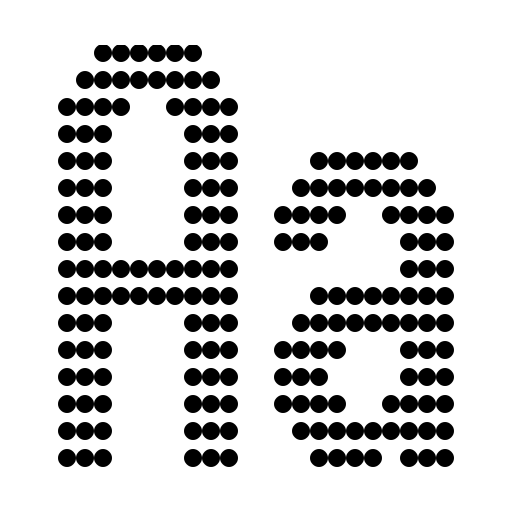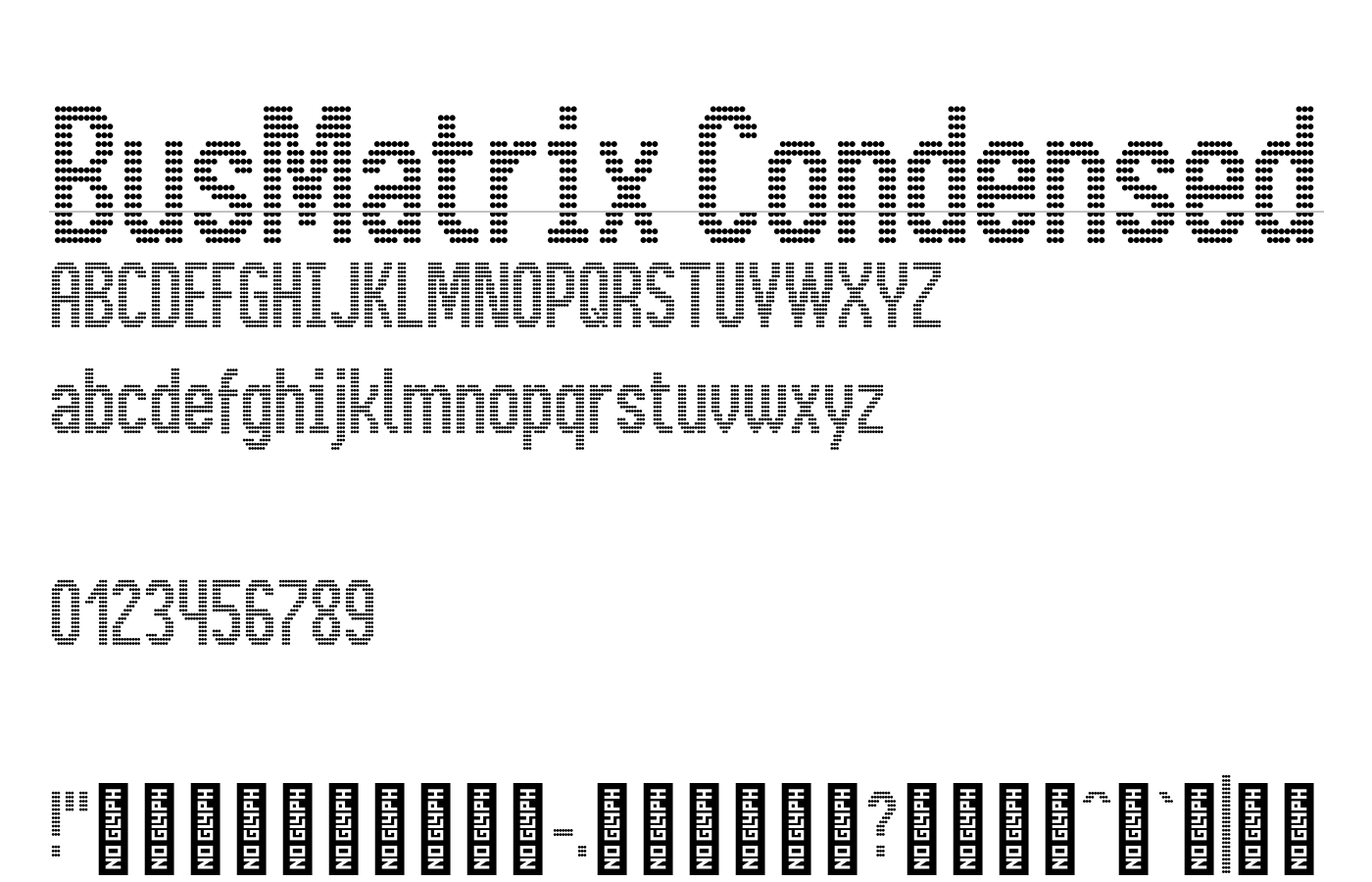
BusMatrix Condensed is a distinctive sans serif display font characterized by its narrow, tall letterforms composed of evenly spaced dots, giving it a digital, pixelated appearance. Its unique, geometric style with consistent stroke weight and monospaced feel makes it ideal for tech-inspired branding, modern posters, and futuristic editorial designs where a clean, structured look is desired. This font excels in headlines and logos, adding a contemporary, tech-savvy mood without sacrificing legibility.
BusMatrix Condensed Font
About BusMatrix Condensed Font
| Font family | BusMatrix Condensed Font |
| Designer | Sjoerd Kulsdom, Studio Dot by dot |